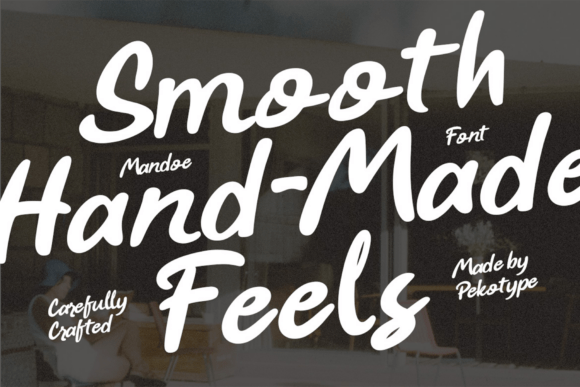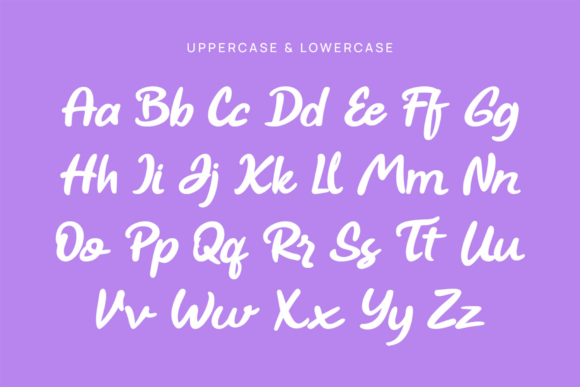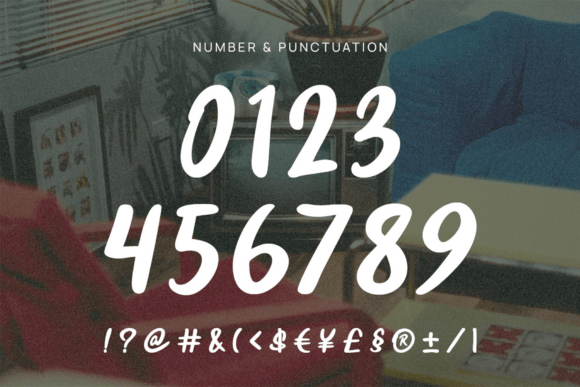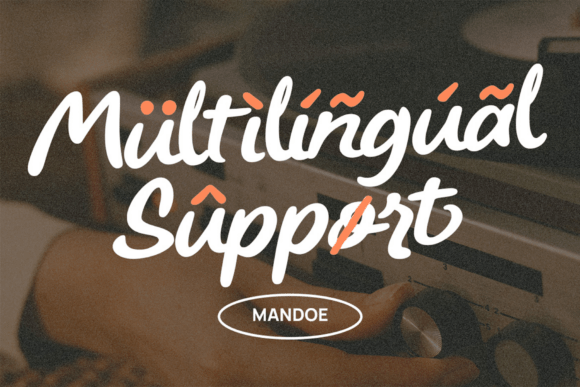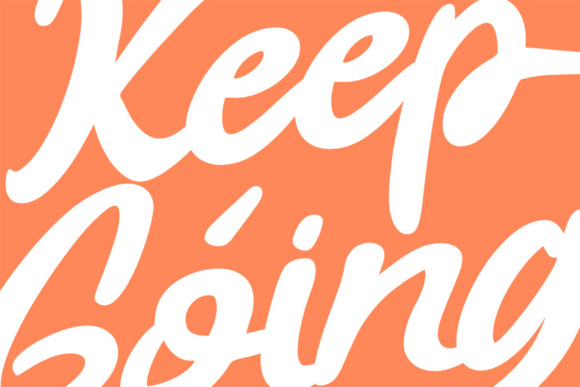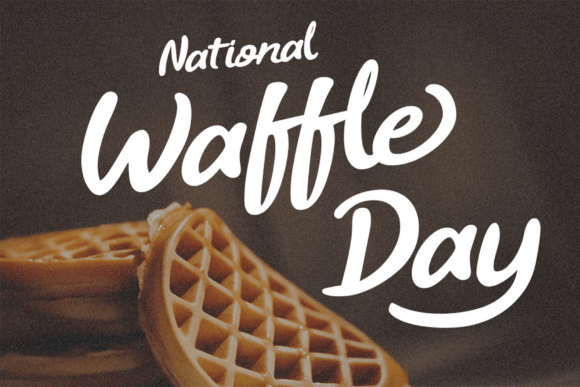
Introduction to Mandoe Font
MANDOE is a smooth handmade script font with a natural handwritten flow.
Its soft curves and fluid strokes create a warm, friendly look while staying clear and readable for modern design work The typeface includes uppercase and lowercase characters with multilingual support, making it suitable for a wide range of projects.
Key Features of Mandoe Font
Why Choose Mandoe Font?
Mandoe Font offers exceptional quality and versatility, making it a valuable addition to your design toolkit. Whether you’re creating for personal projects or commercial use, Mandoe Font delivers professional results.